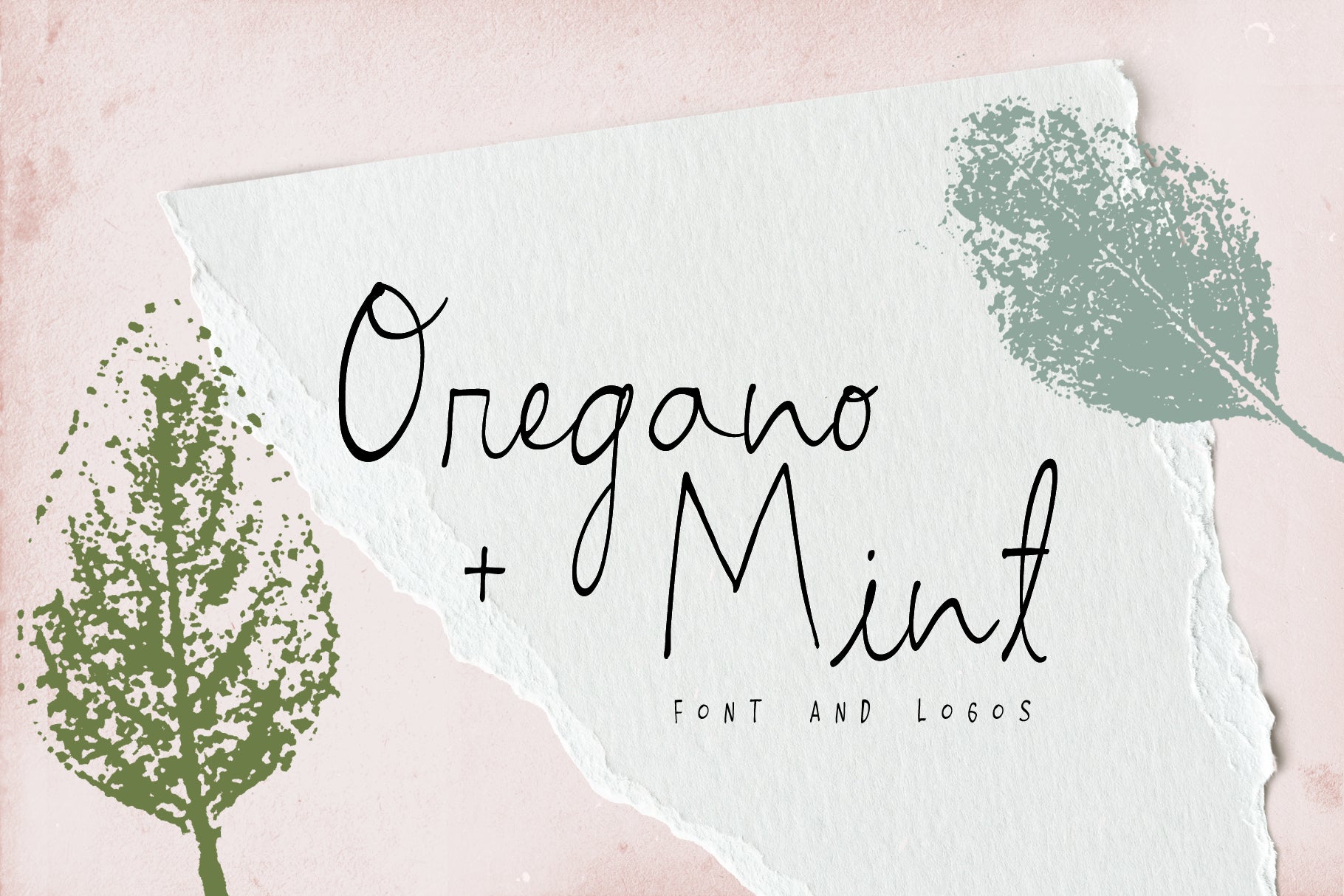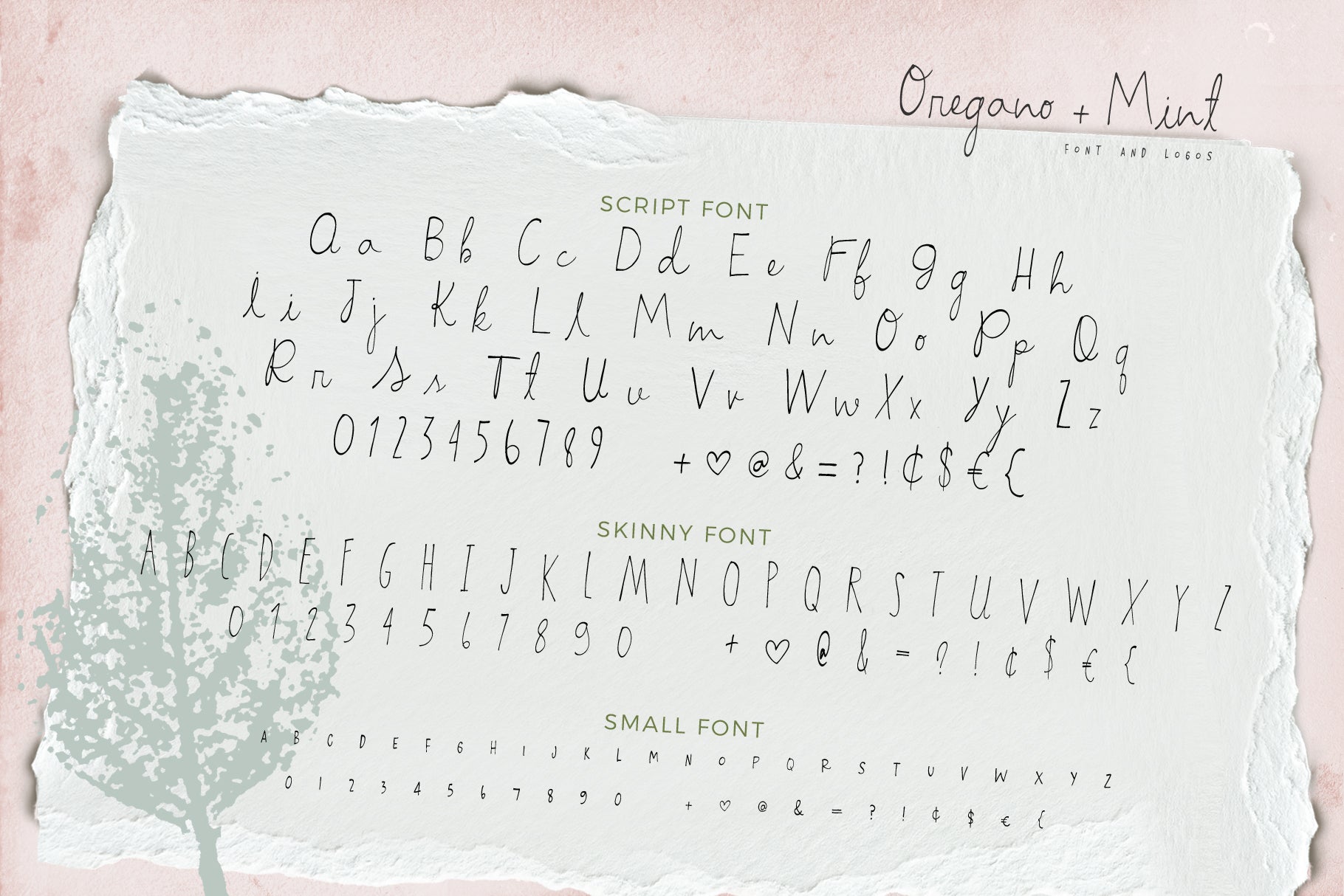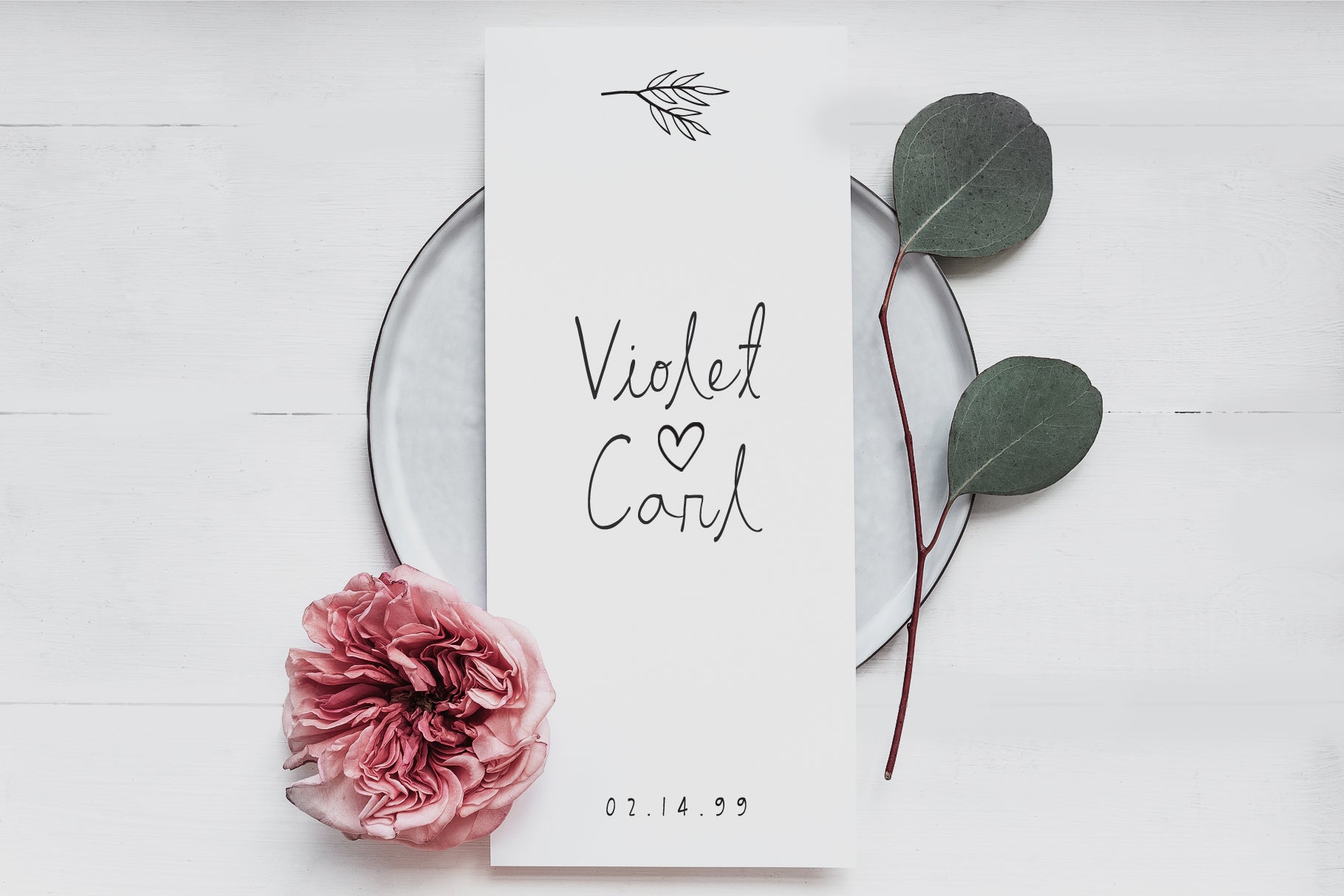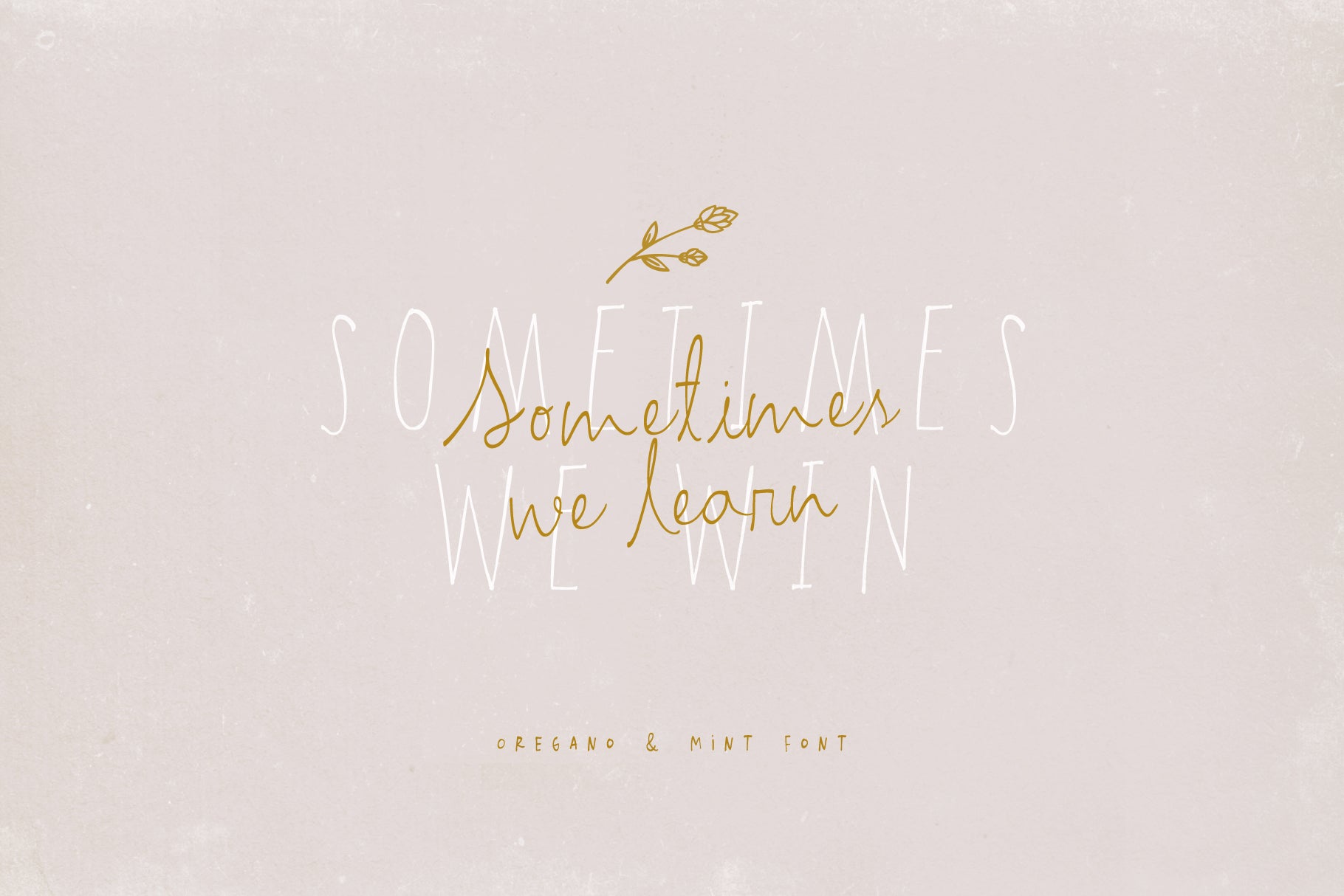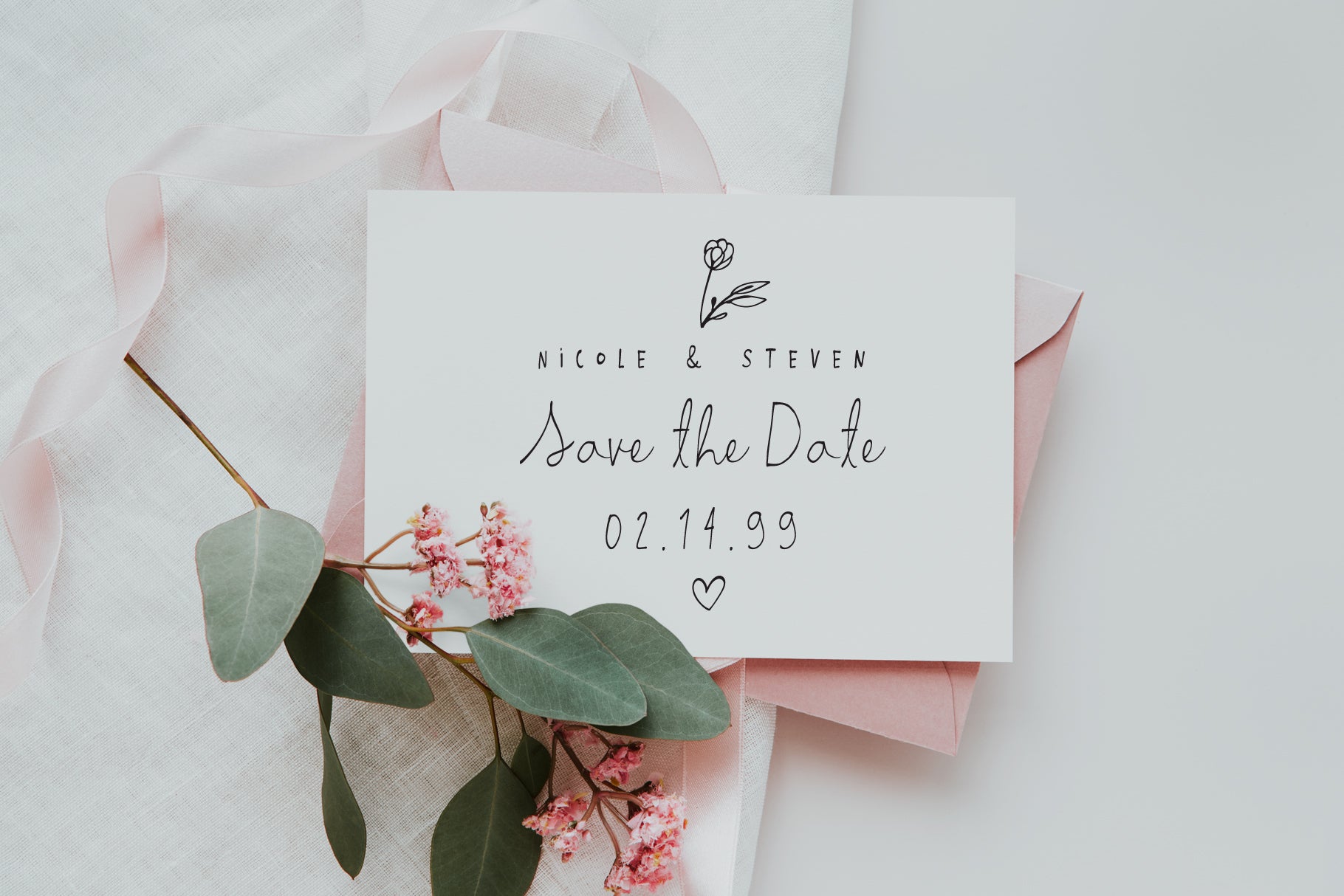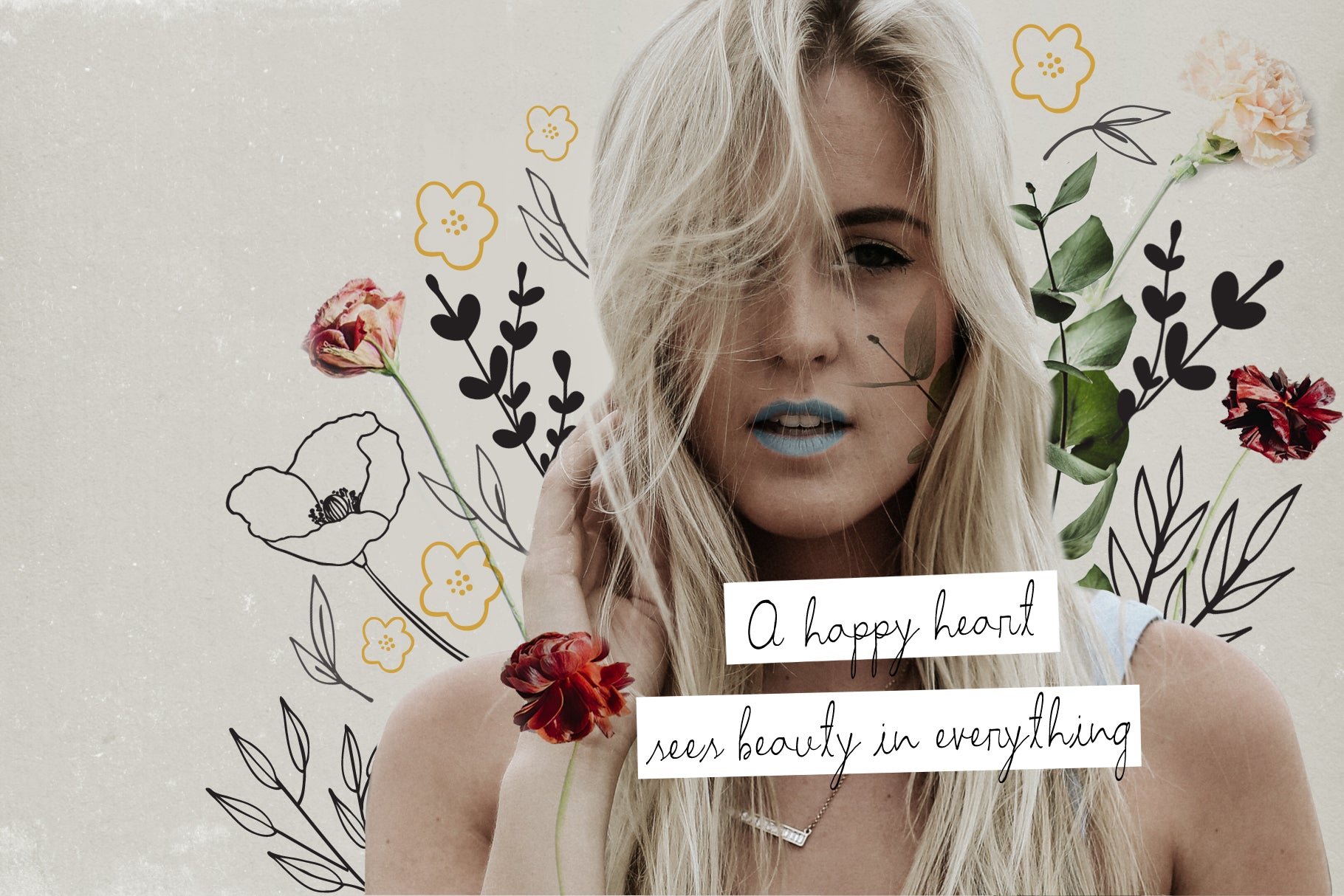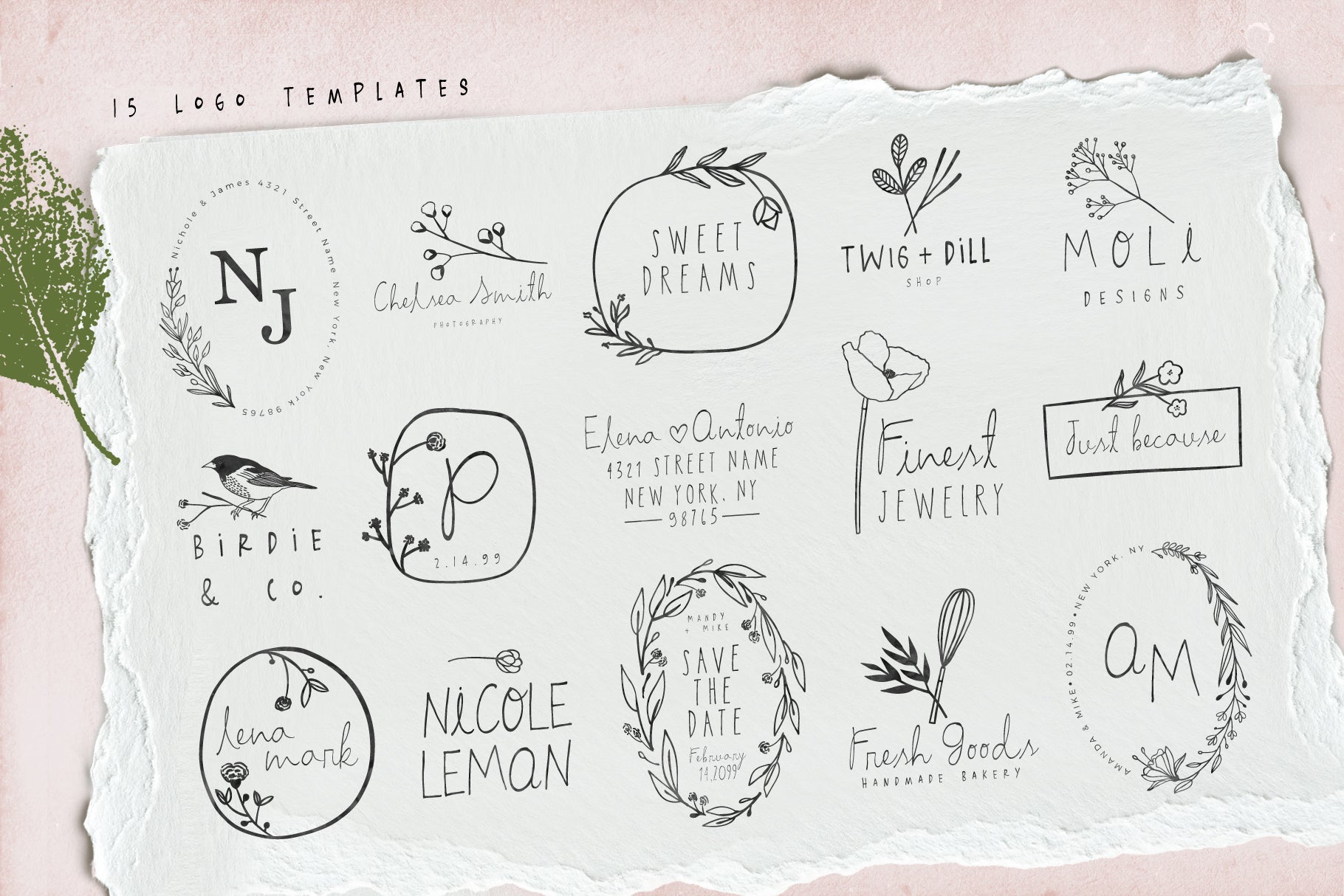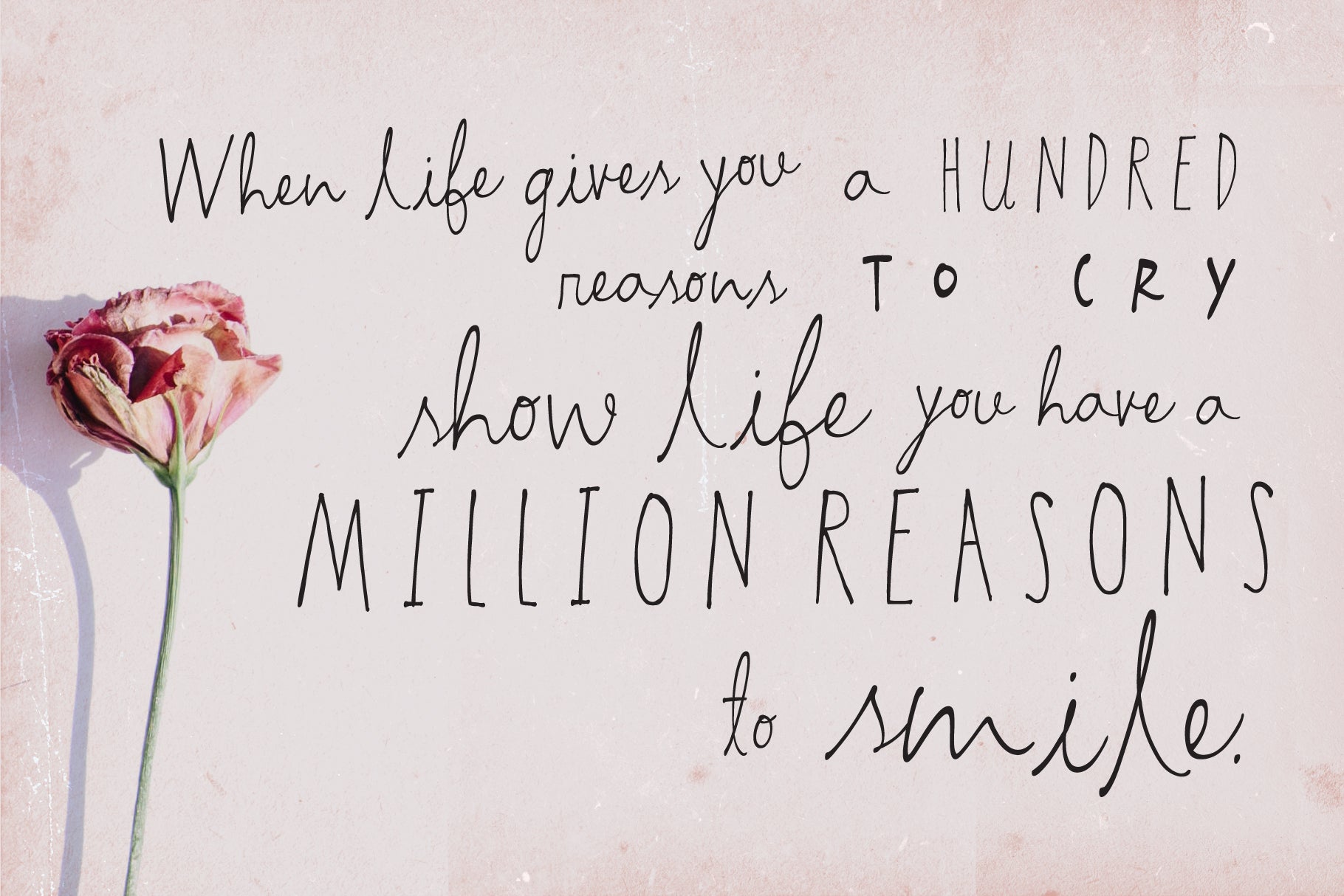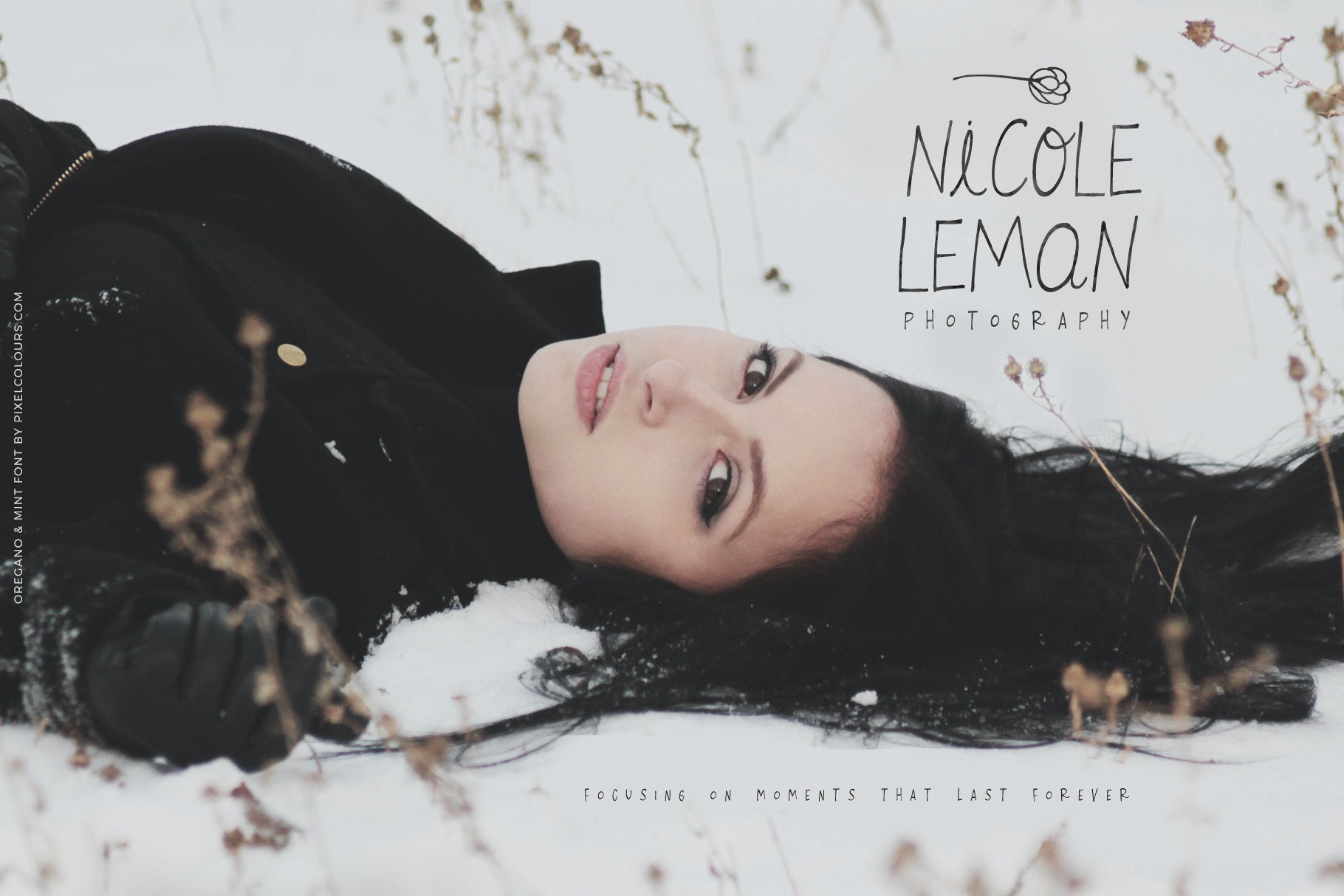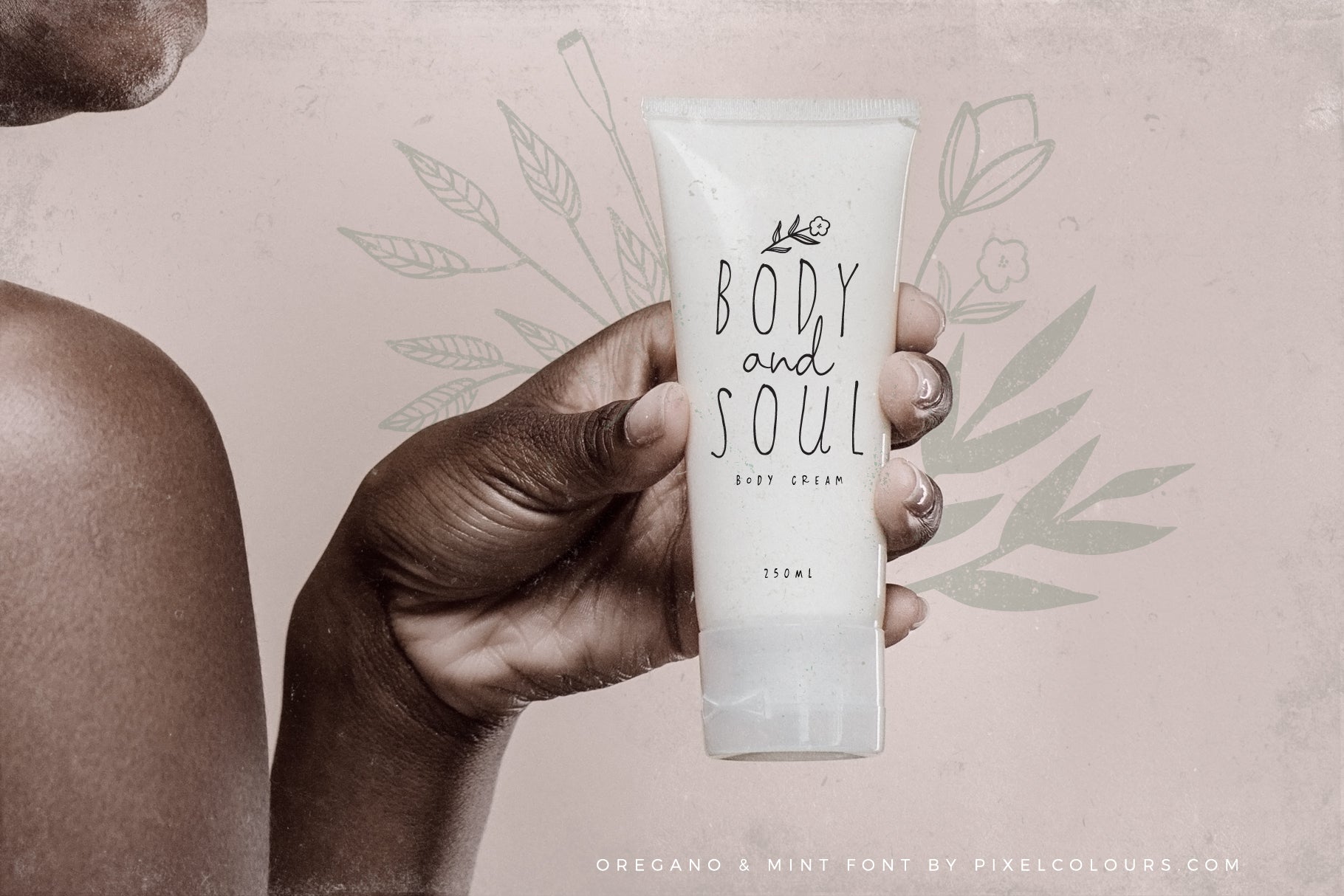
Oregano Mint Script Font and Logos
Oregano & Mint is a beautiful feminine font family with a sweet handwriting style. All 3 fonts are designed to work perfectly together!
- Oregano and Mint Regular: the script font
- Oregano and Mint Skinny: perfect to combine with the script or as is
- Oregano and Mint Small: looks great in logos, as a tagline or for product descriptions